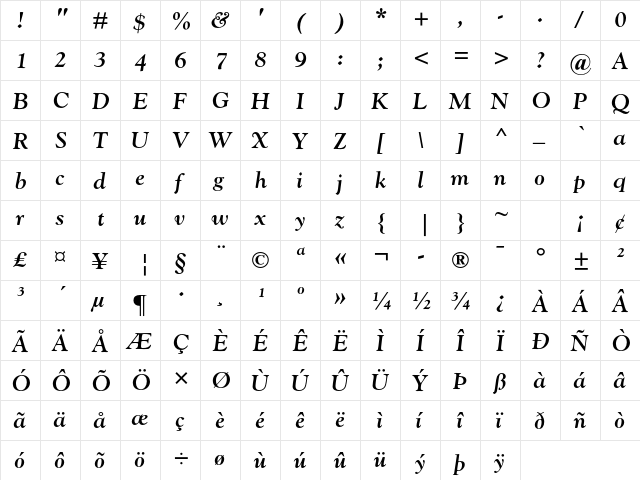
Goudy MT Std Bold Italic Font Preview
Goudy MT Std Bold Italic
Design Context for Goudy MT Std Typeface
Goudy MT Std is a composed and adaptable typeface that performs quietly and consistently across a wide range of design contexts. The slanted form adds forward momentum and visual energy. The heavy weight commands attention and anchors typographic hierarchies.
Pro Tip: Use Goudy MT Std for emphasis, pull quotes, and subheadings where its slanted energy can add rhythm to the layout.